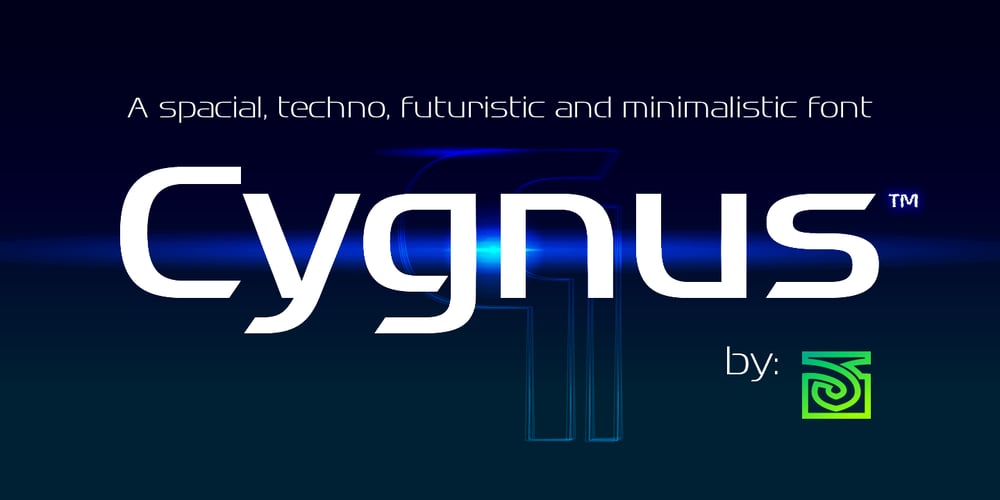
Cygnus Font Family was designed by John Vargas Beltrán and published by JVB Fonts. Cygnus contains 6 styles and family package options. A font face with cyber, spacial, and aerial connotations that offers a decisive futuristic and techno spirit. Available in two stylish versions, clear and rusty. With one alternate for lowercase /a/ and more diacritics and ligatures and extended range glyphs and more new stylish alternates, Cygnus can be used in titles and display text that require a futuristic and dynamic style. Recommended for games, presentations, or any graphic design pieces that reveal and need futuristic, techno, spacial, aerial and/or Sci-fi style.